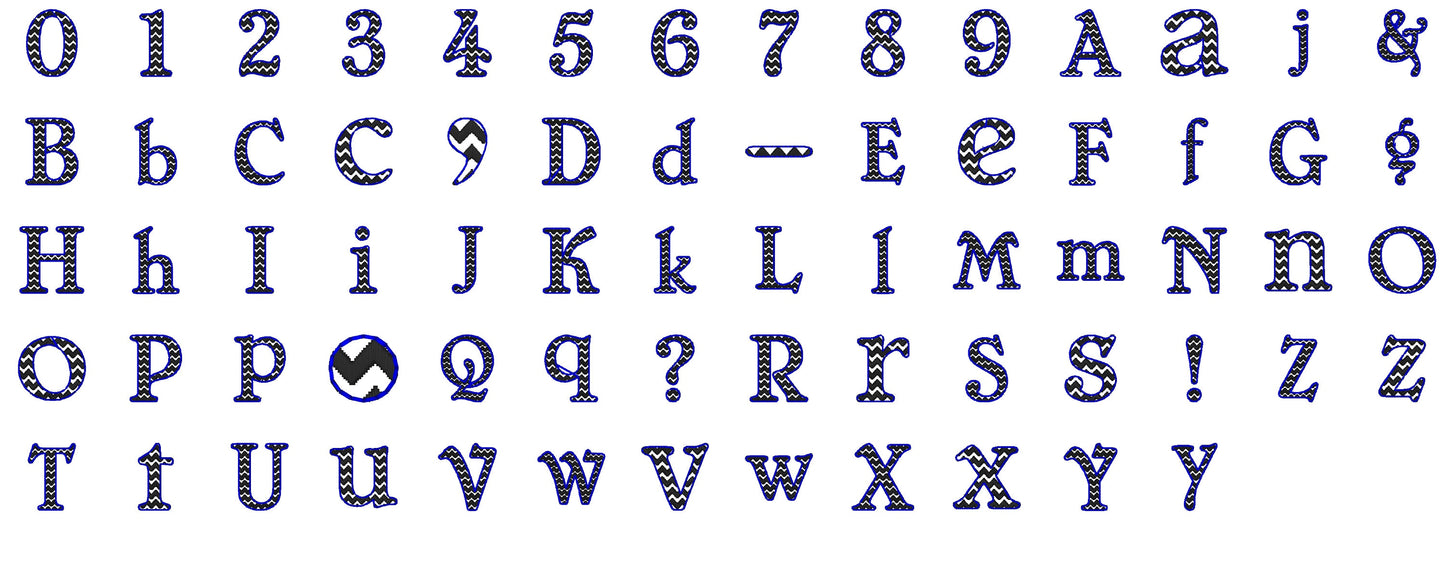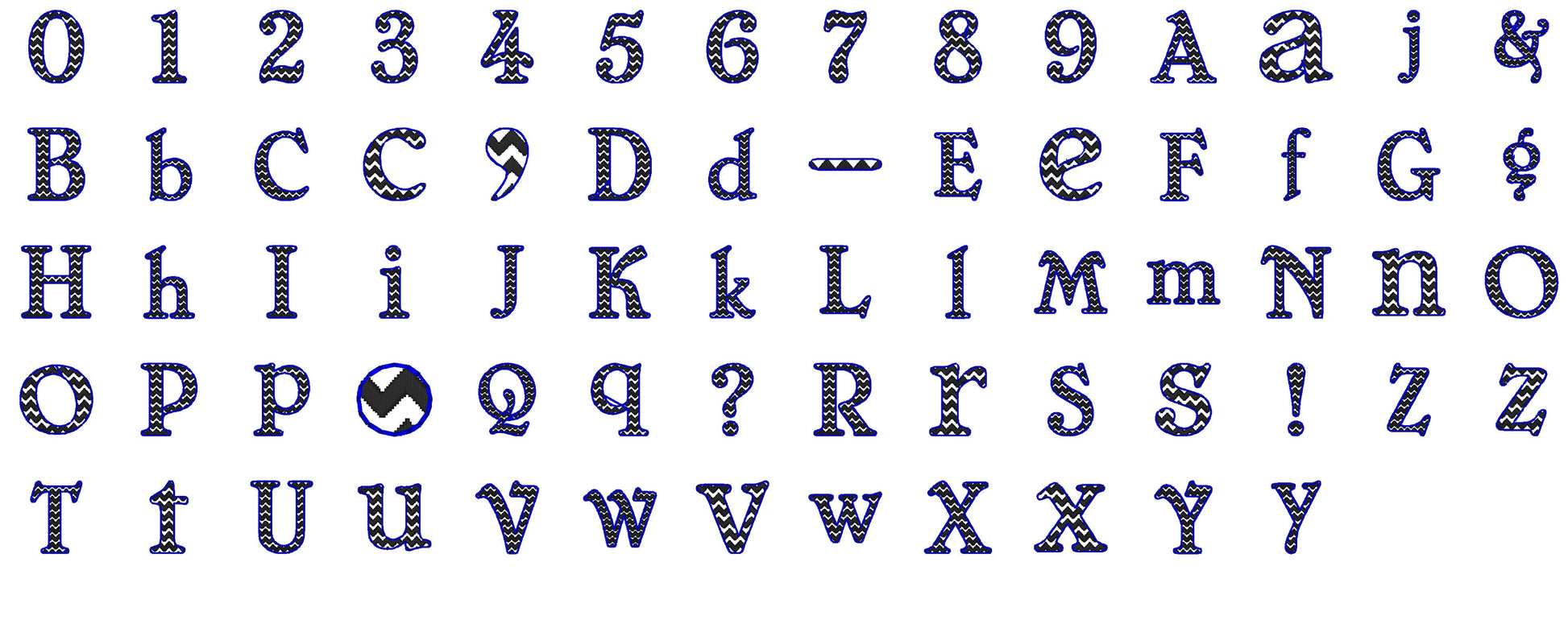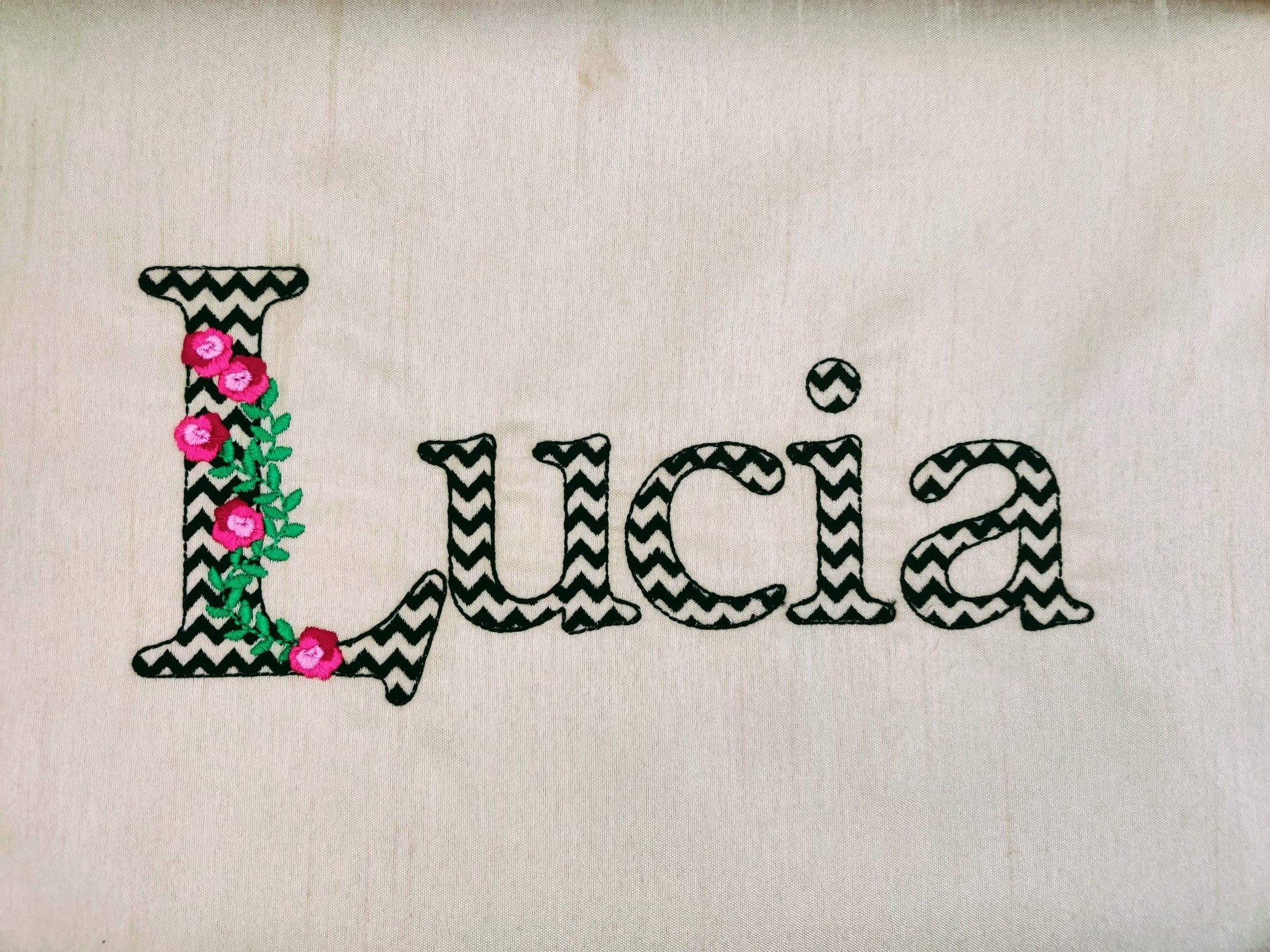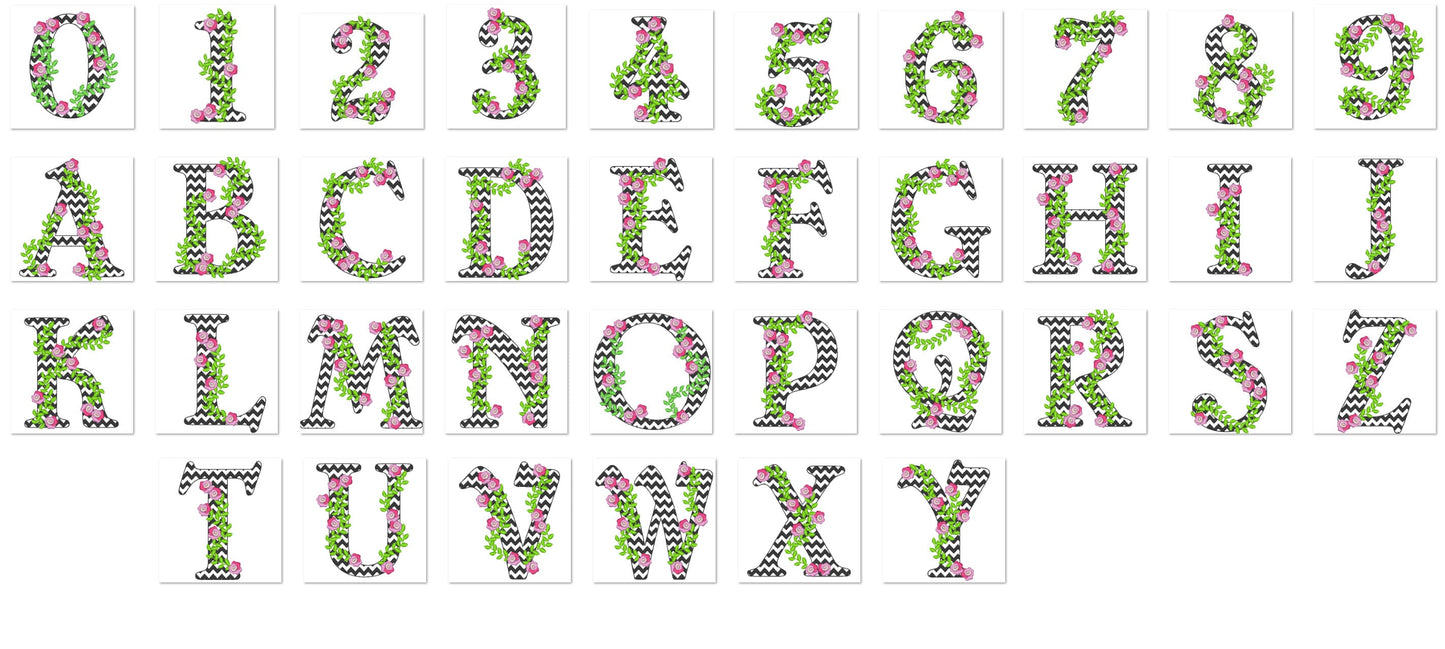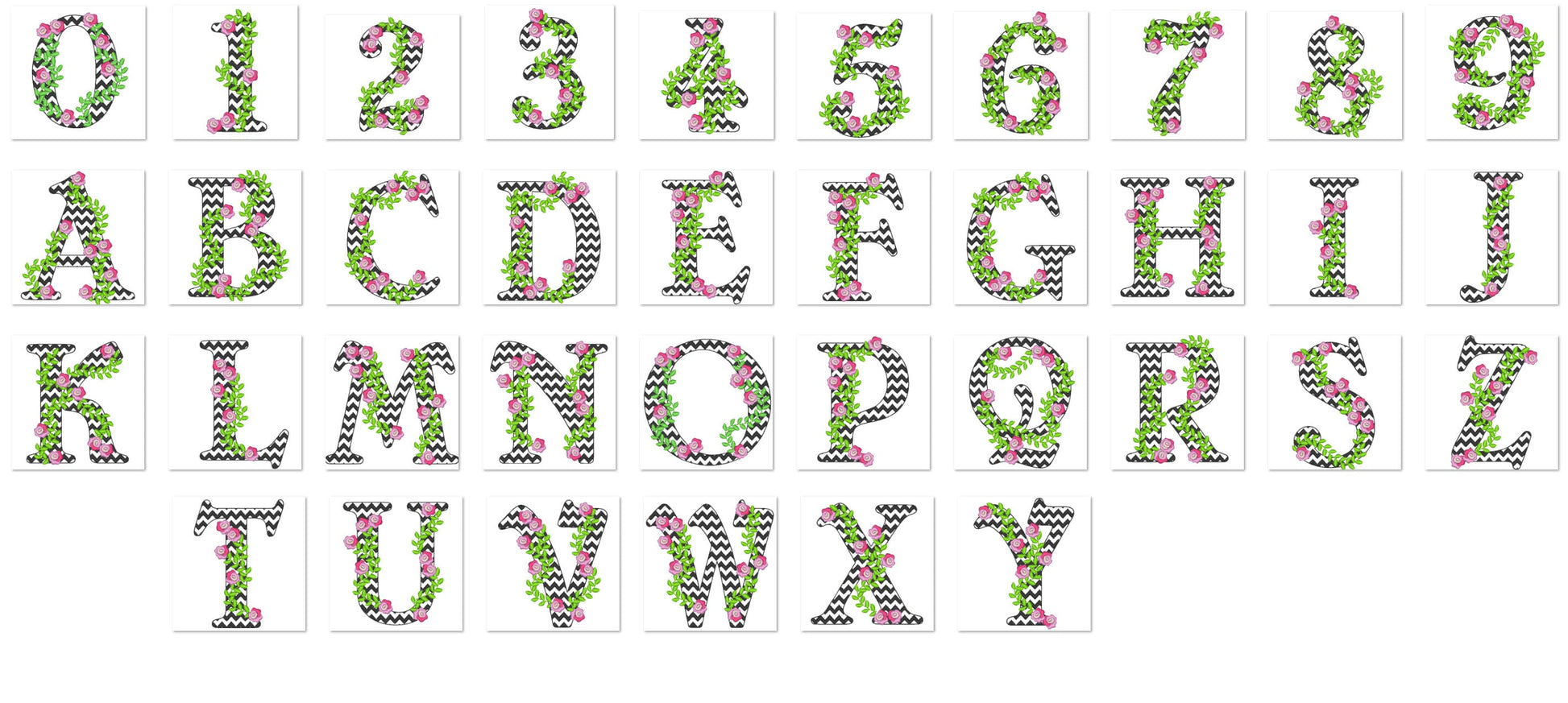
Mini Rose and Chevron Font
A quick stitch with chevron lines inside; the fabric shows through like lace. Rose capital letters and numbers come in 3, 4, 4.5 and 5 inches. The plain ricrac font has uppercase and lowercase letters, numbers 0 to 9 and punctuation in seven sizes: 2, 2.4, 3, 3.3, 3.9, 4.3 and 5.1 inches.
- Rose capital letters and numbers, 3 to 5 in
- Ricrac chevron font, uppercase and lowercase letters, numbers, punctuation
- Ricrac font in 7 sizes, 2 to 5.1 in